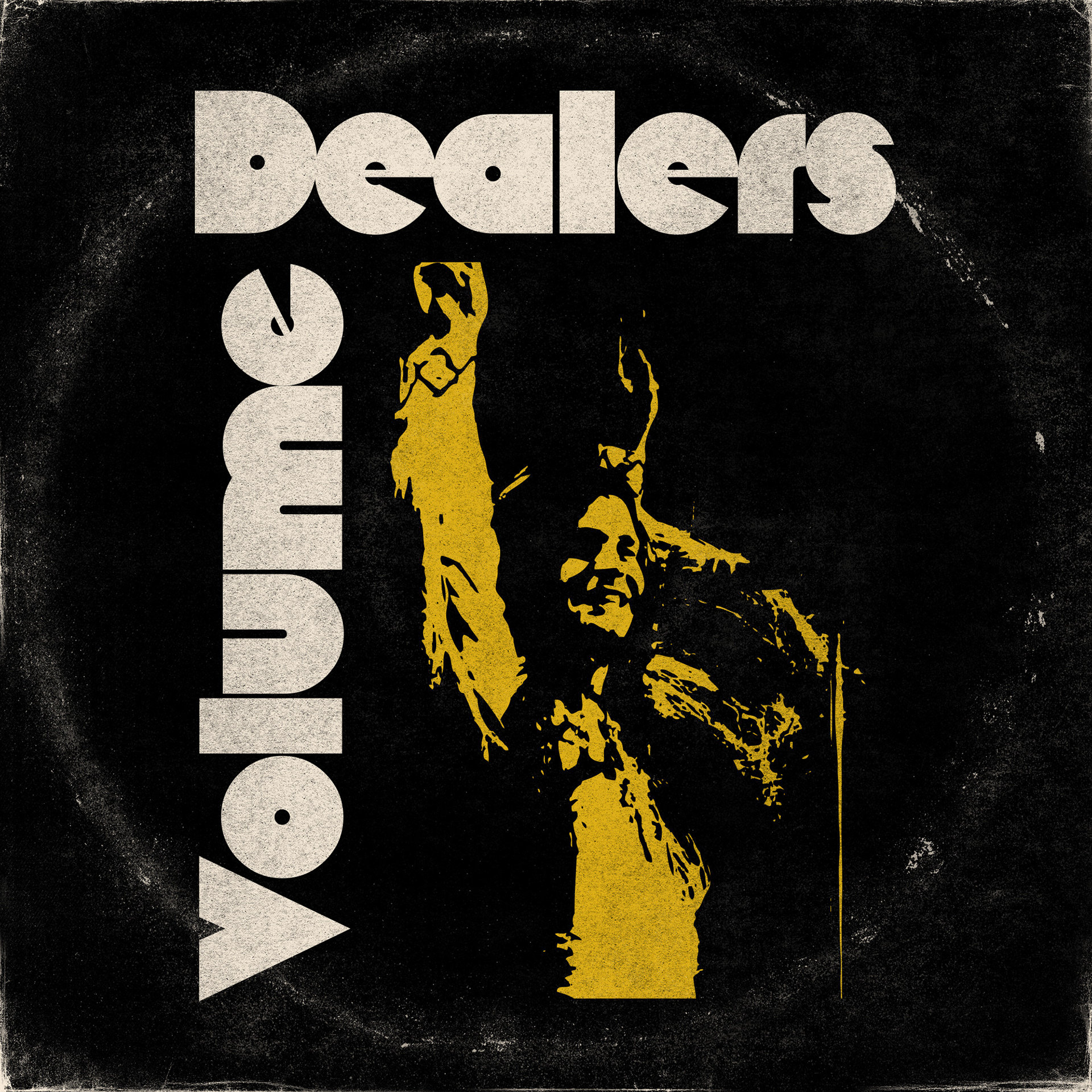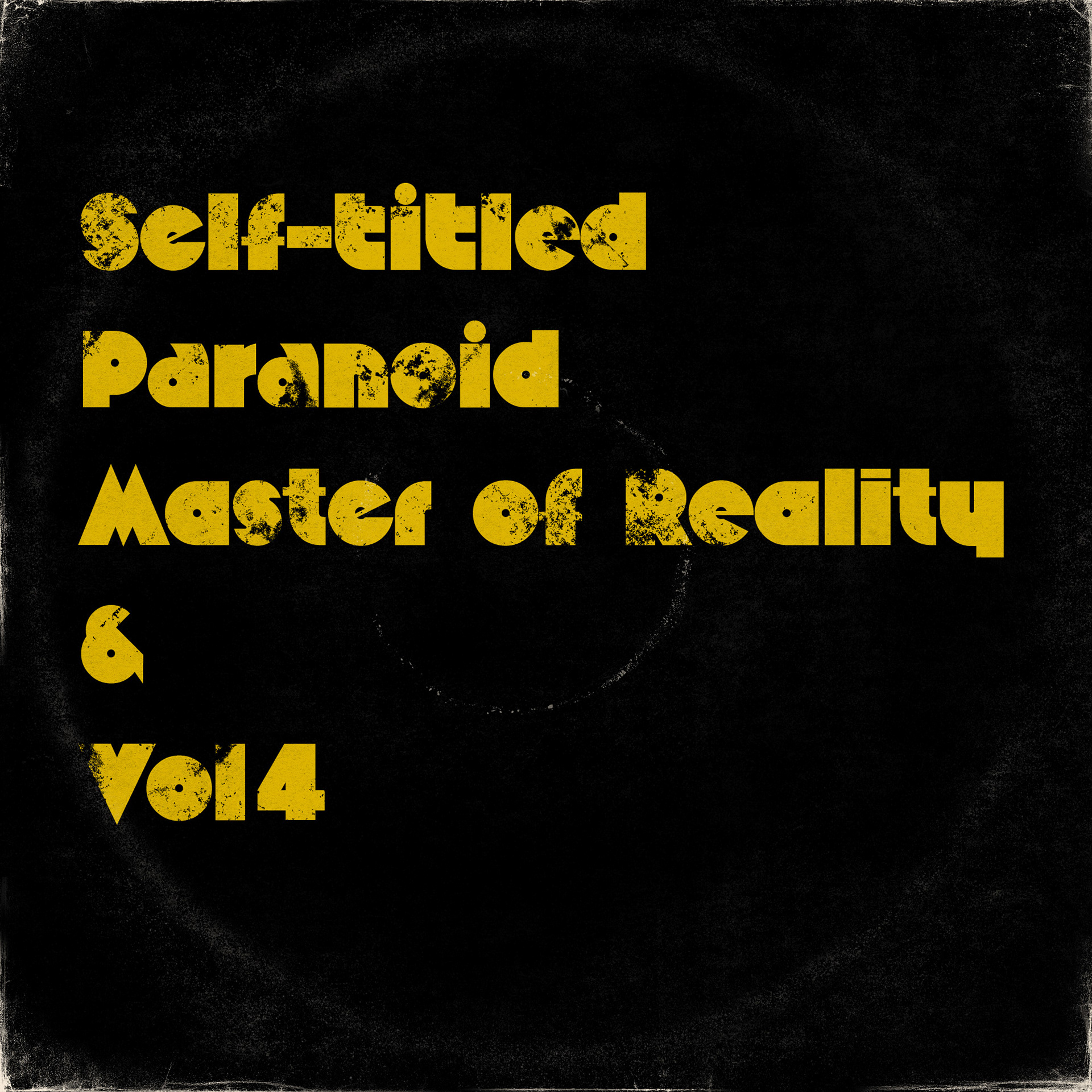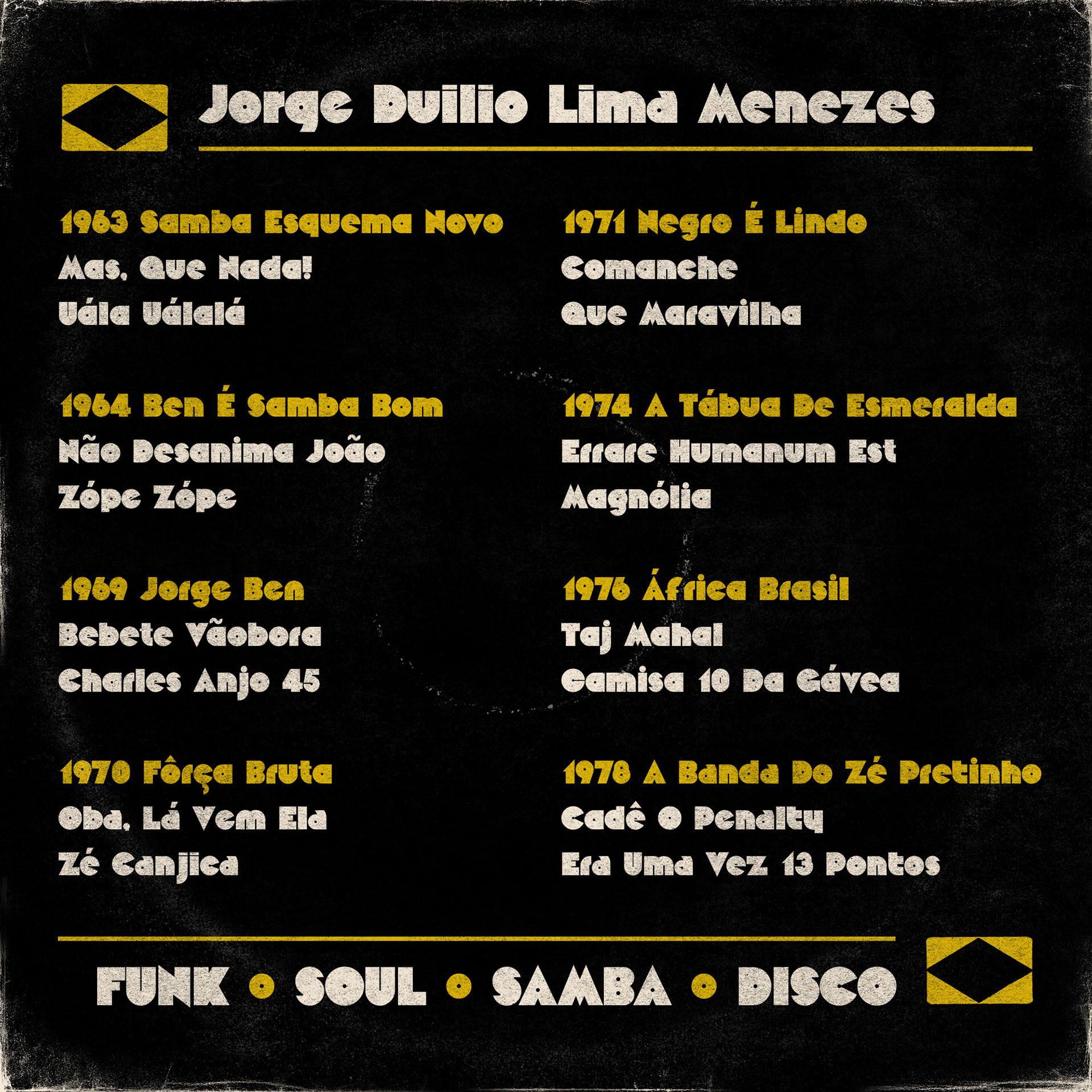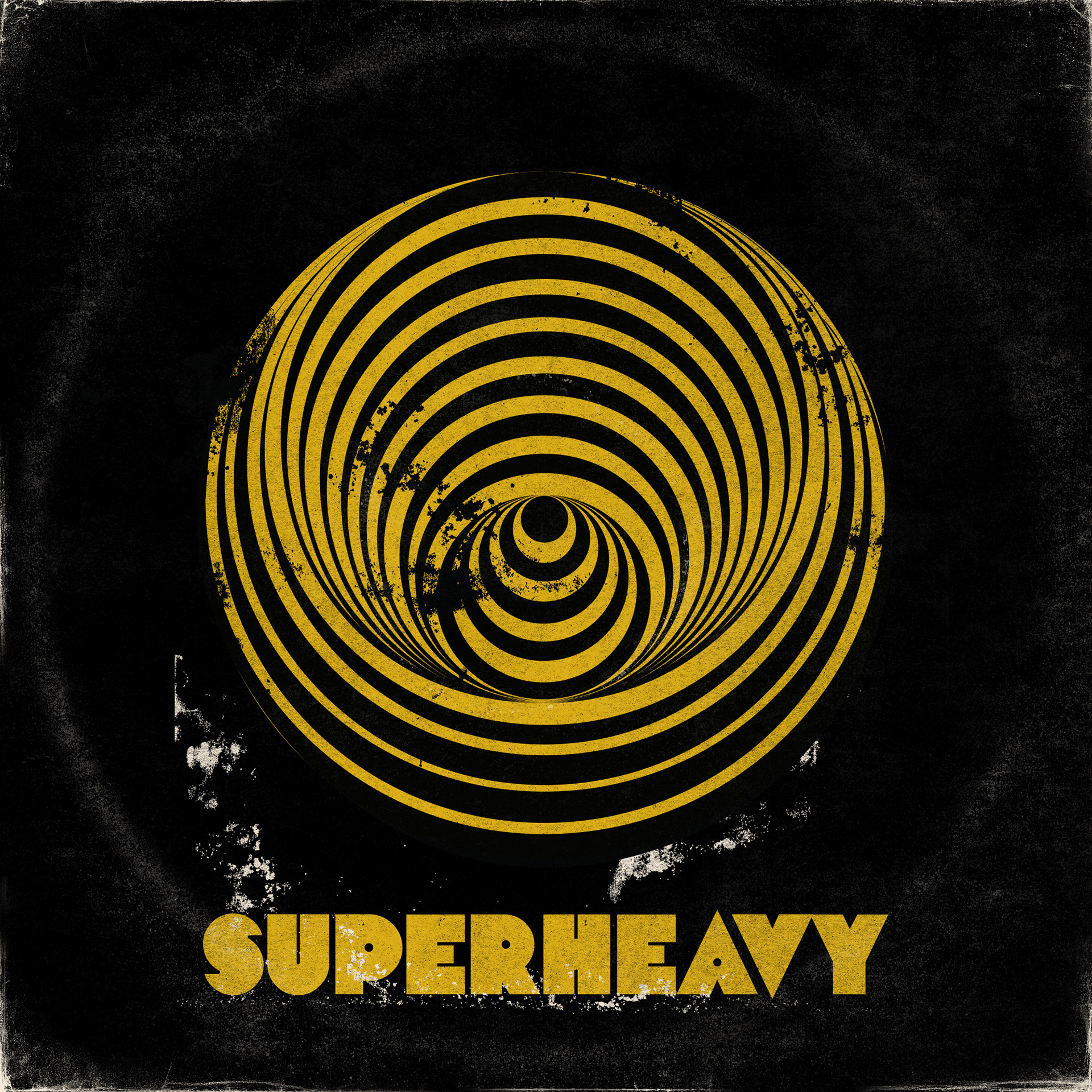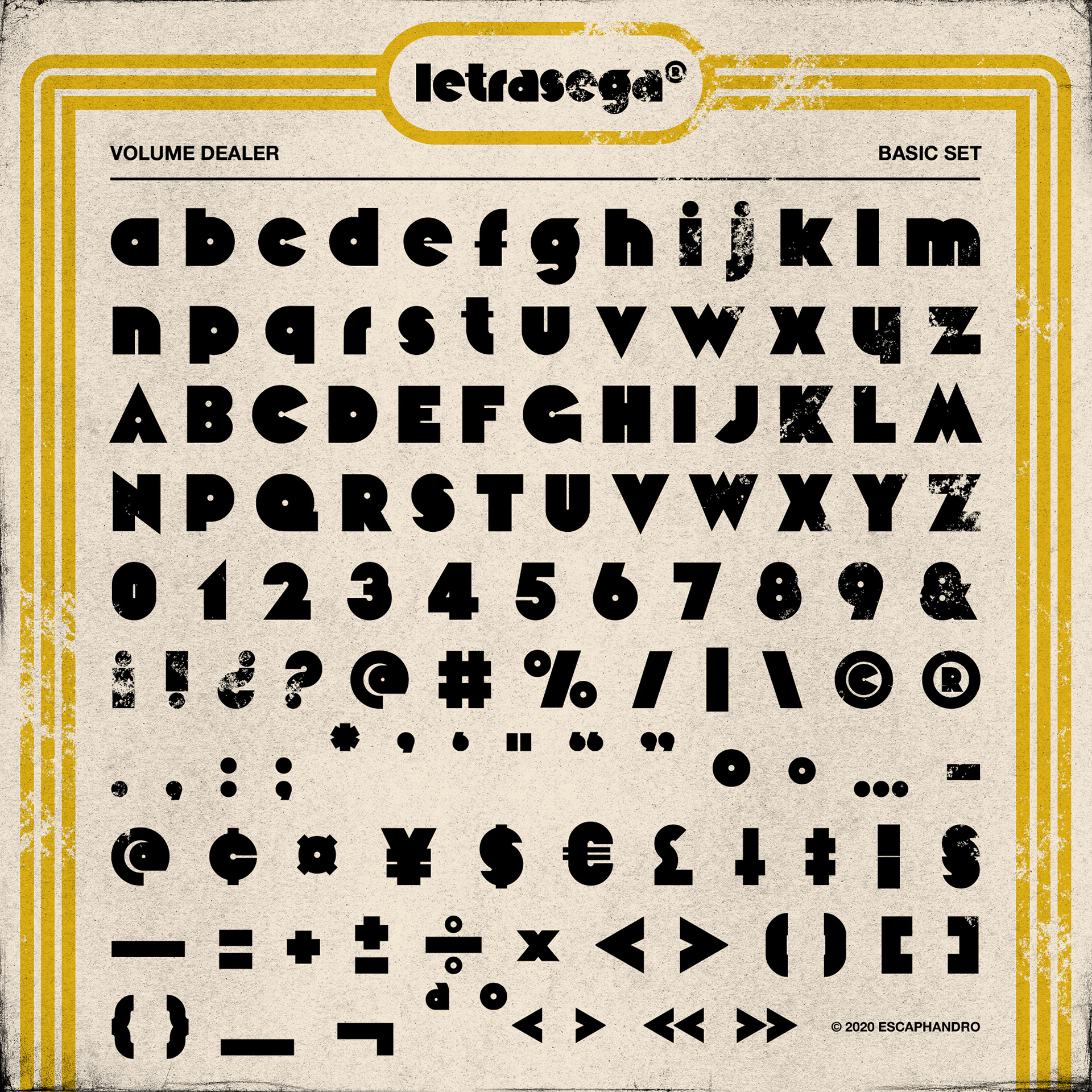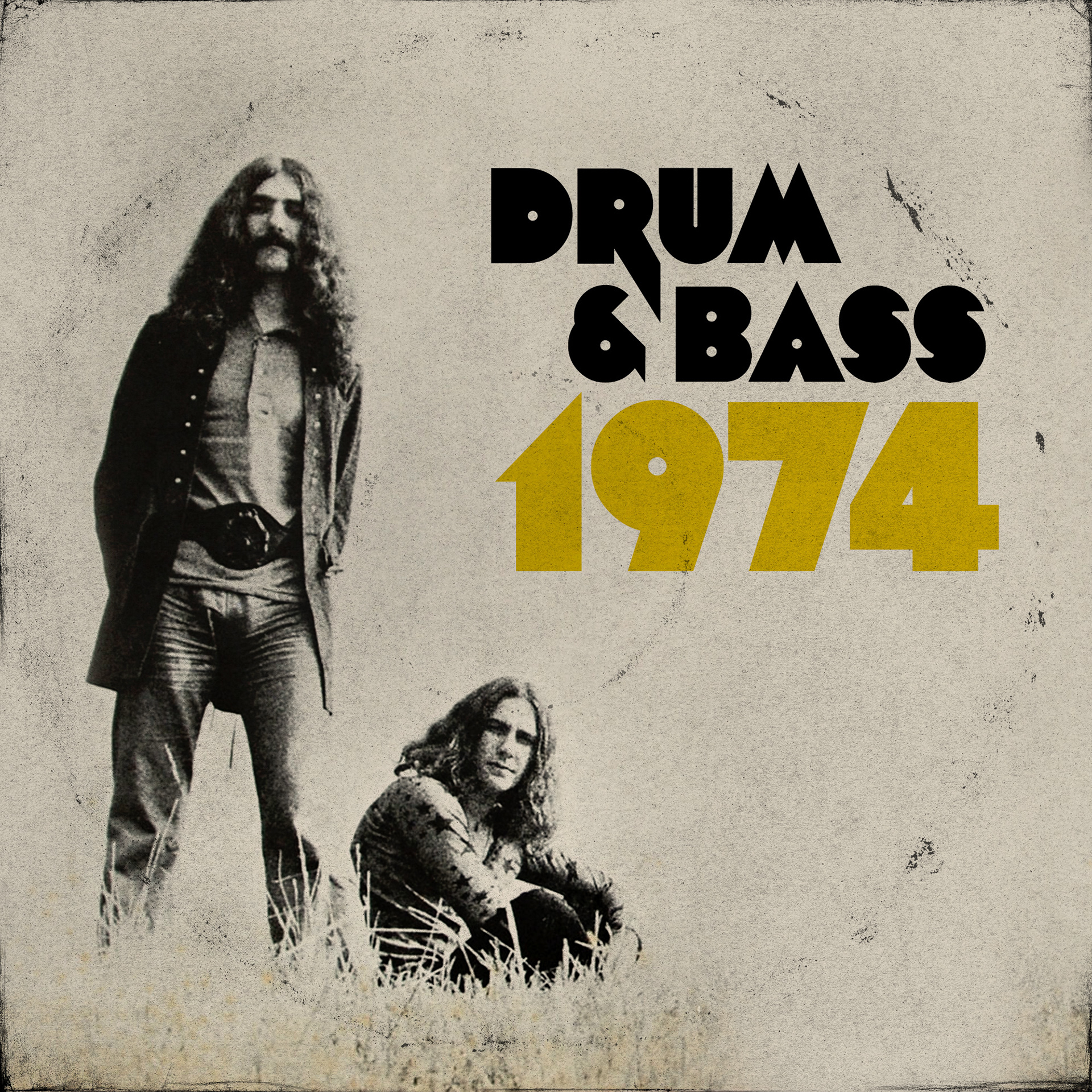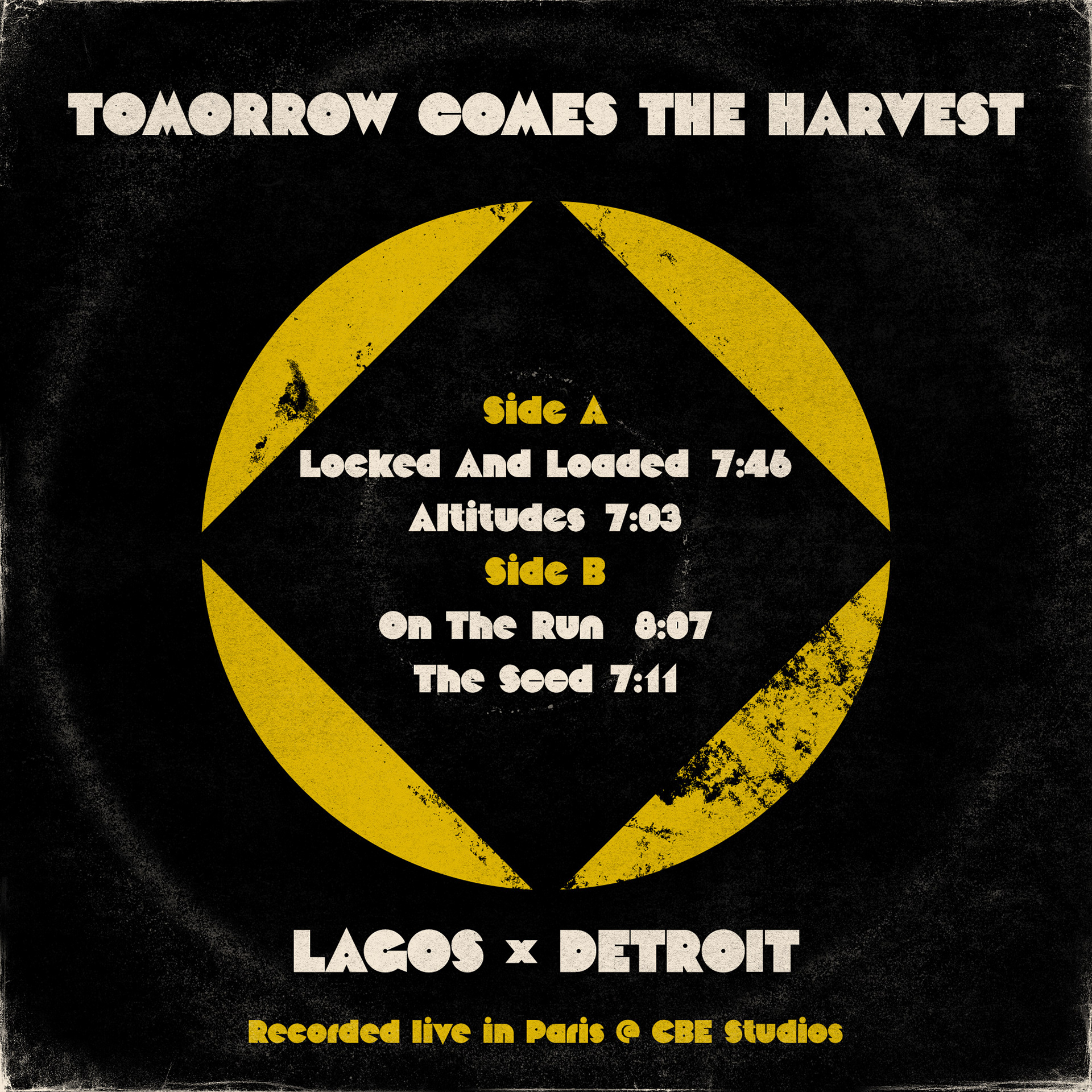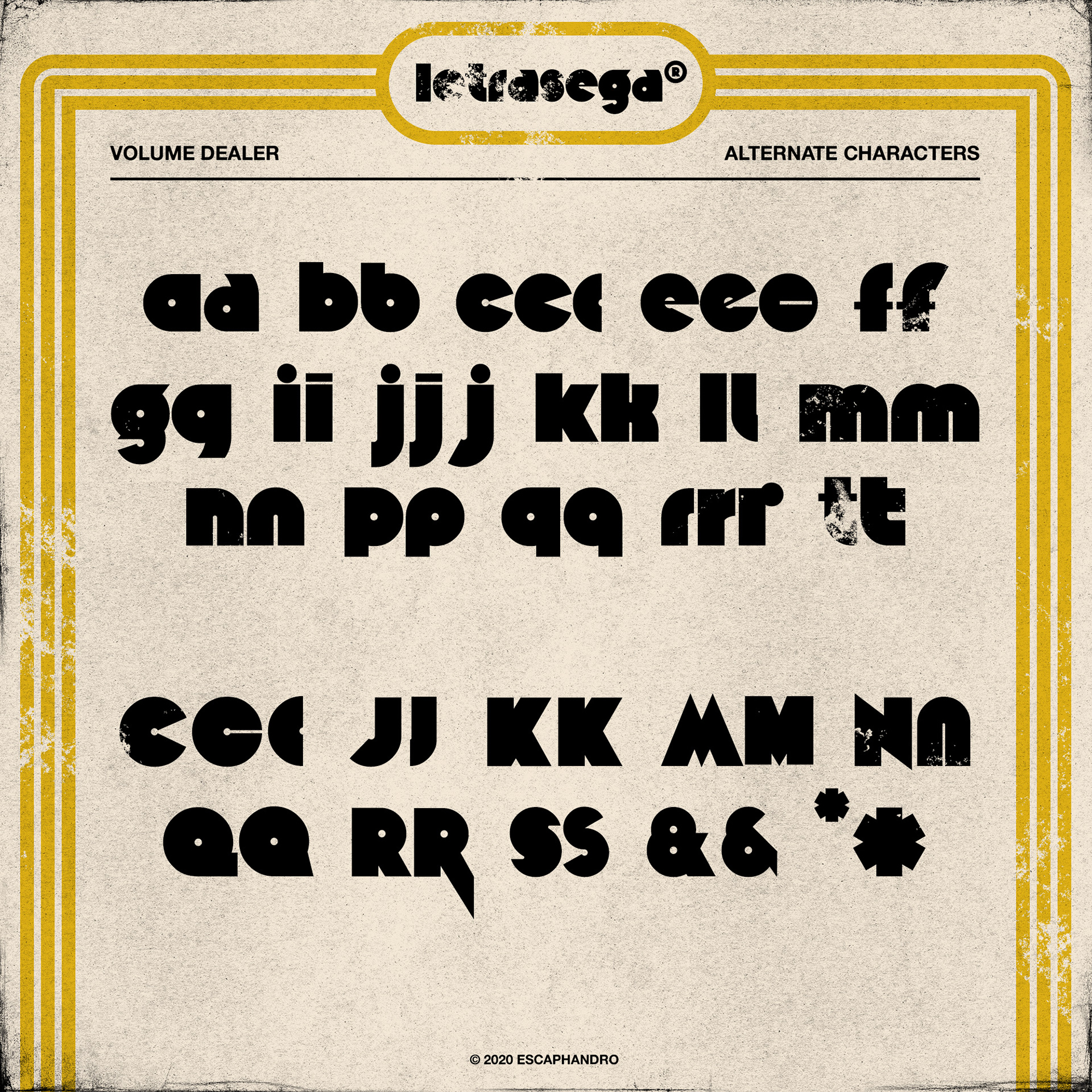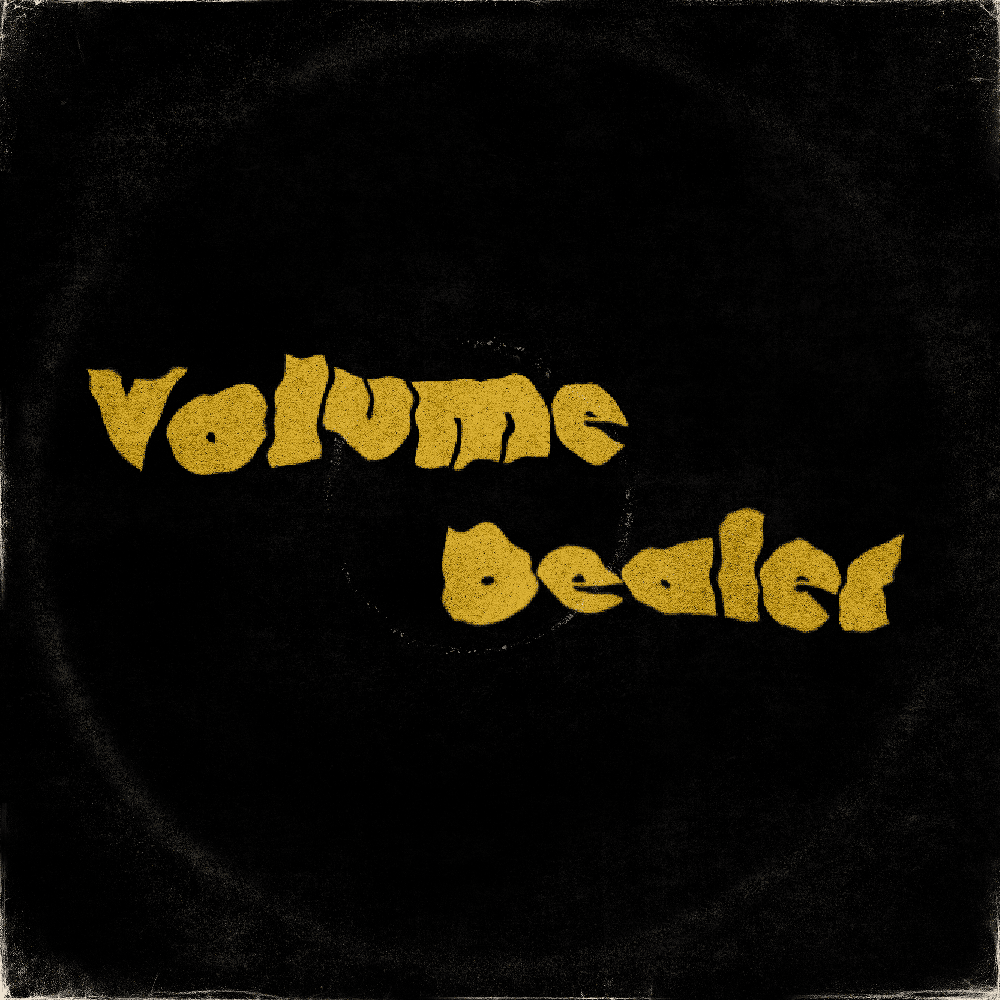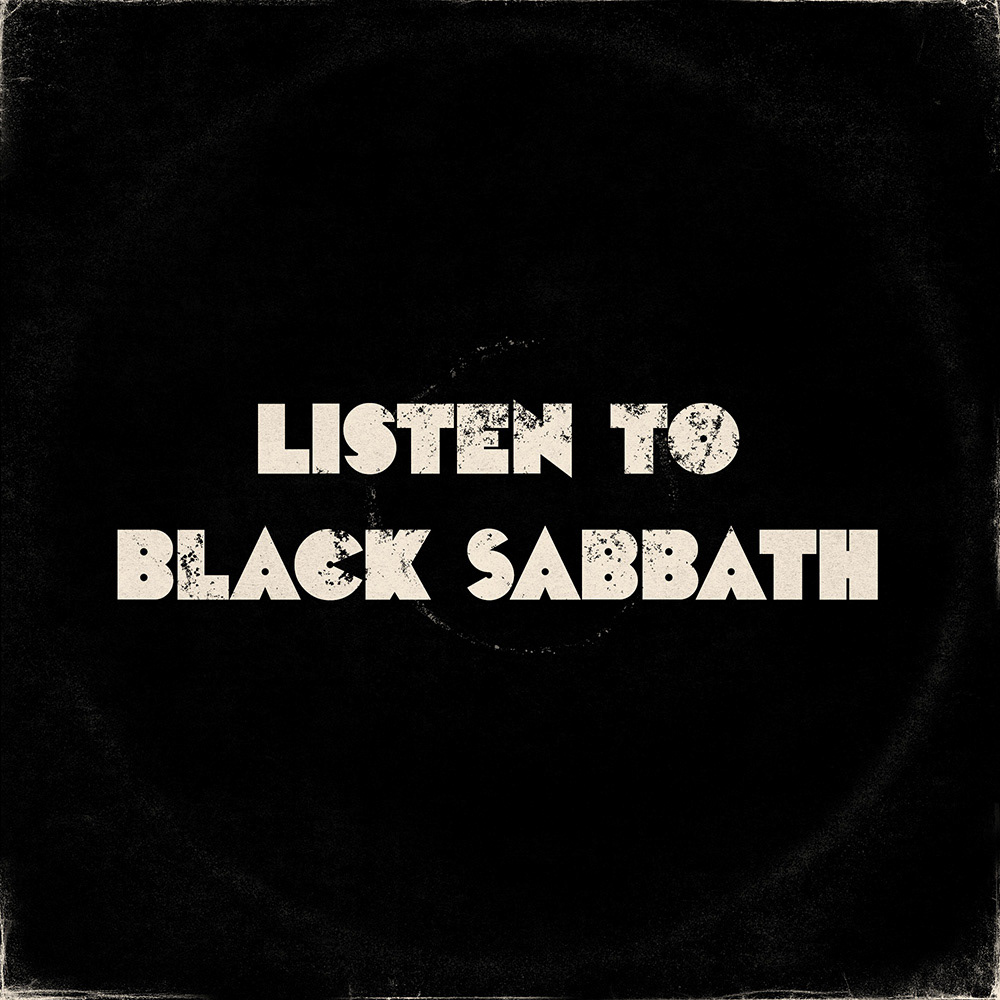
Volume Dealer is a typeface revival with references in photocomposition (Black Body, by Peter Steiner, 1973) and the classic lettering of the album Vol 4 by Black Sabbath.
It is indicated for use in large size: titles, letterings and logos. Punctuation, accentuation for Latin languages and a good set of alternative characters are also included.